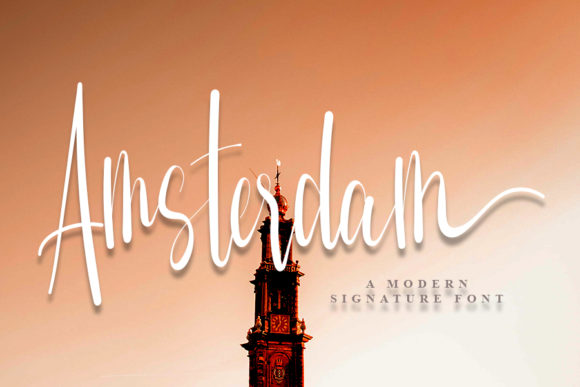
The Amsterdam Font: A Romantic and Dainty Script for Your Creative Projects
I’ll never forget the time I was working on a wedding invitation design project, and my client asked for a font that exuded elegance and sophistication. I scoured the internet, tried out countless fonts, but nothing seemed quite right. That was until I stumbled upon the Amsterdam font. With its romantic and dainty script, it instantly captured the essence of the wedding’s vintage-chic theme. In this article, I’ll share my experience with the Amsterdam font, its features, and how you can make the most of it in your creative projects.
An Honest Review of the Amsterdam Font
What I Love About Amsterdam Font
- ✨ Elegant and Modern Look: The Amsterdam font boasts a classy, elegant, and modern design that makes it perfect for logos, branding, invitations, stationery, wedding designs, social media posts, and more.
- ✅ Versatile: This font is incredibly versatile and can be used for a wide range of creative projects, from formal events to digital content.
- 💕 Romantic and Dainty: The Amsterdam font’s script design is both romantic and dainty, making it ideal for projects that require a touch of whimsy and charm.
While the Amsterdam font is an excellent choice for many projects, there are a few things to keep in mind:
- ⚠️ Legibility at Small Sizes: Like many script fonts, the Amsterdam font may become less legible at very small sizes. It’s best to use it at larger sizes or for headlines.
- 🤔 Pairing with Other Fonts: As with any script font, pairing the Amsterdam font with other fonts can be a bit tricky. You’ll want to choose fonts that complement its elegant and modern design.
- Experiment with the font’s OpenType features, such as ligatures and stylistic alternates, to add more personality to your design.
The Designer Inspiration Behind Amsterdam Font
The Amsterdam font was inspired by the city’s rich history, cultural heritage, and architectural beauty. The font’s designer aimed to capture the essence of Amsterdam’s romantic and elegant atmosphere, making it perfect for creative projects that require a touch of sophistication and whimsy.
Q: What is the Amsterdam font best suited for?
A: The Amsterdam font is best suited for creative projects that require a touch of elegance, sophistication, and romance, such as logos, branding, invitations, stationery, wedding designs, and social media posts.
Q: Is the Amsterdam font easy to read?
A: The Amsterdam font is generally easy to read, especially at larger sizes. However, like many script fonts, it may become less legible at very small sizes.